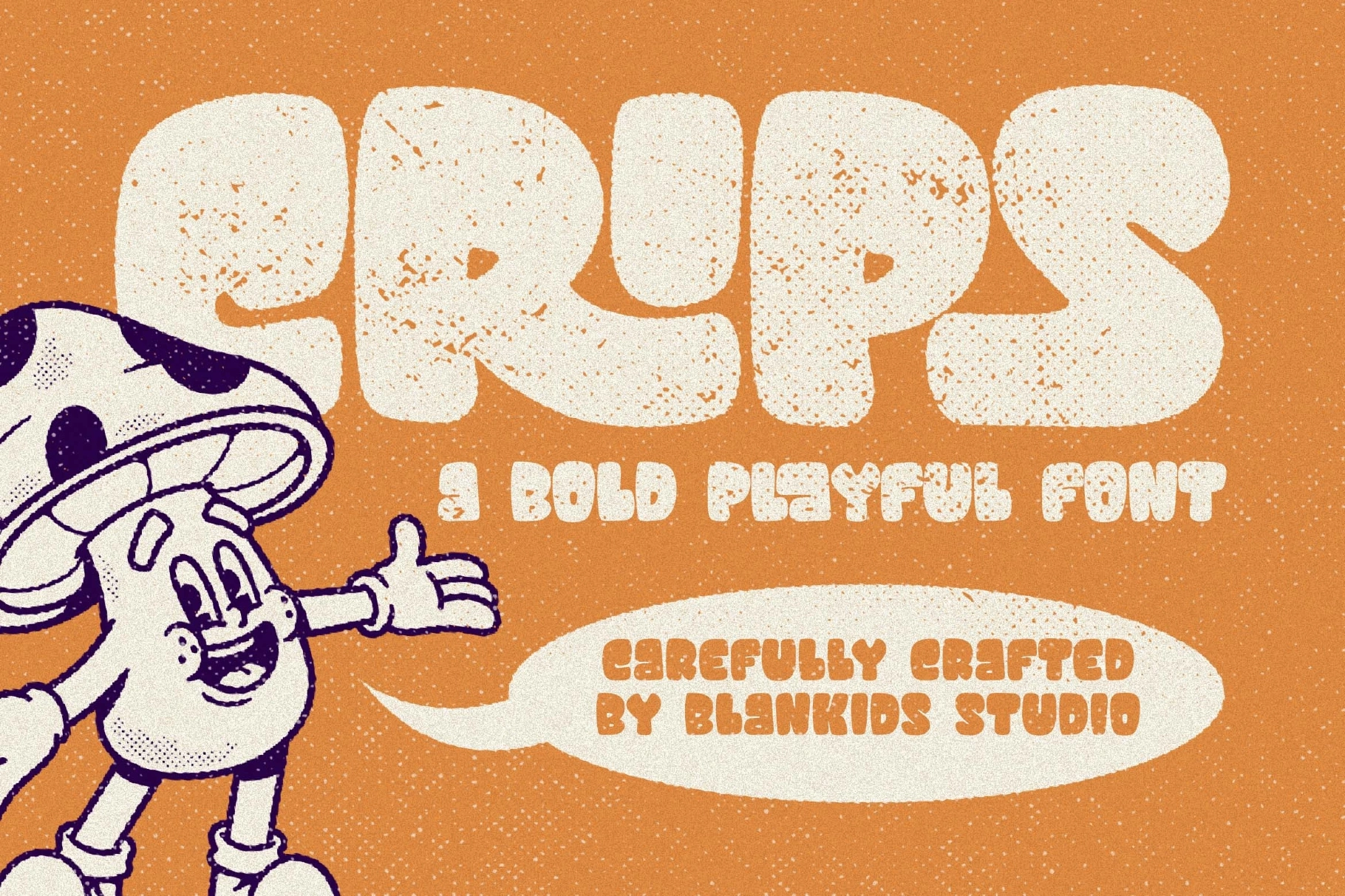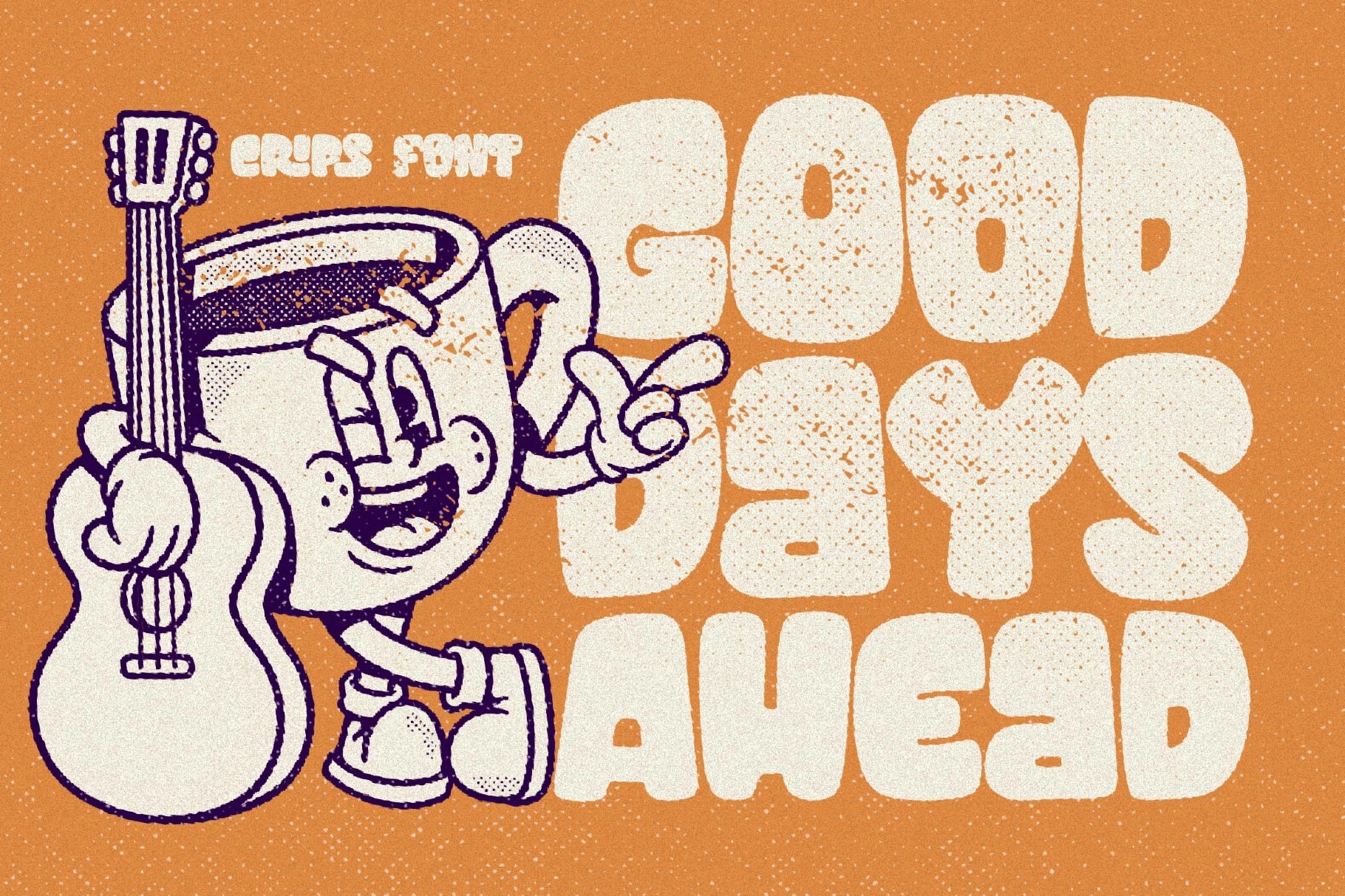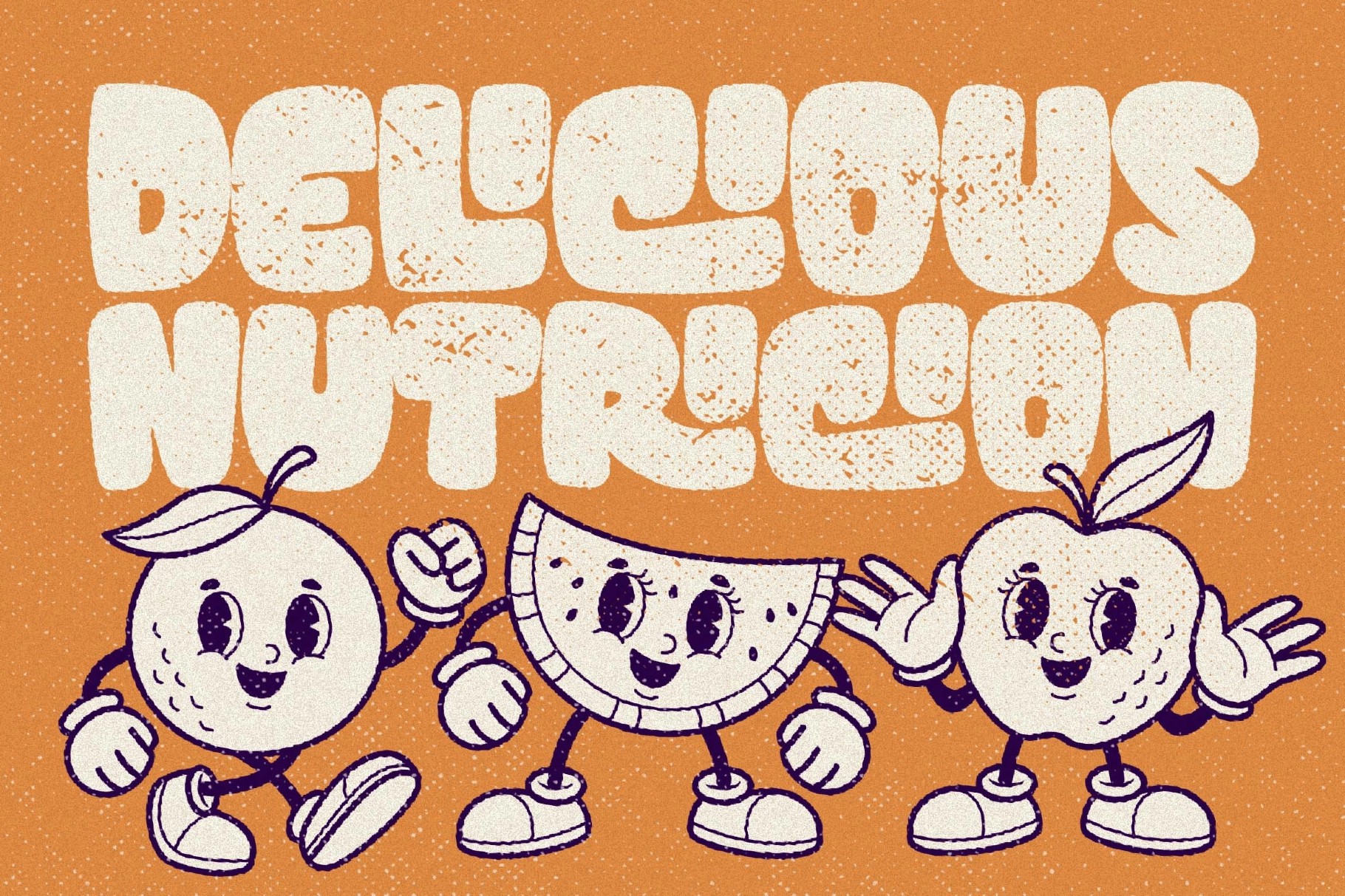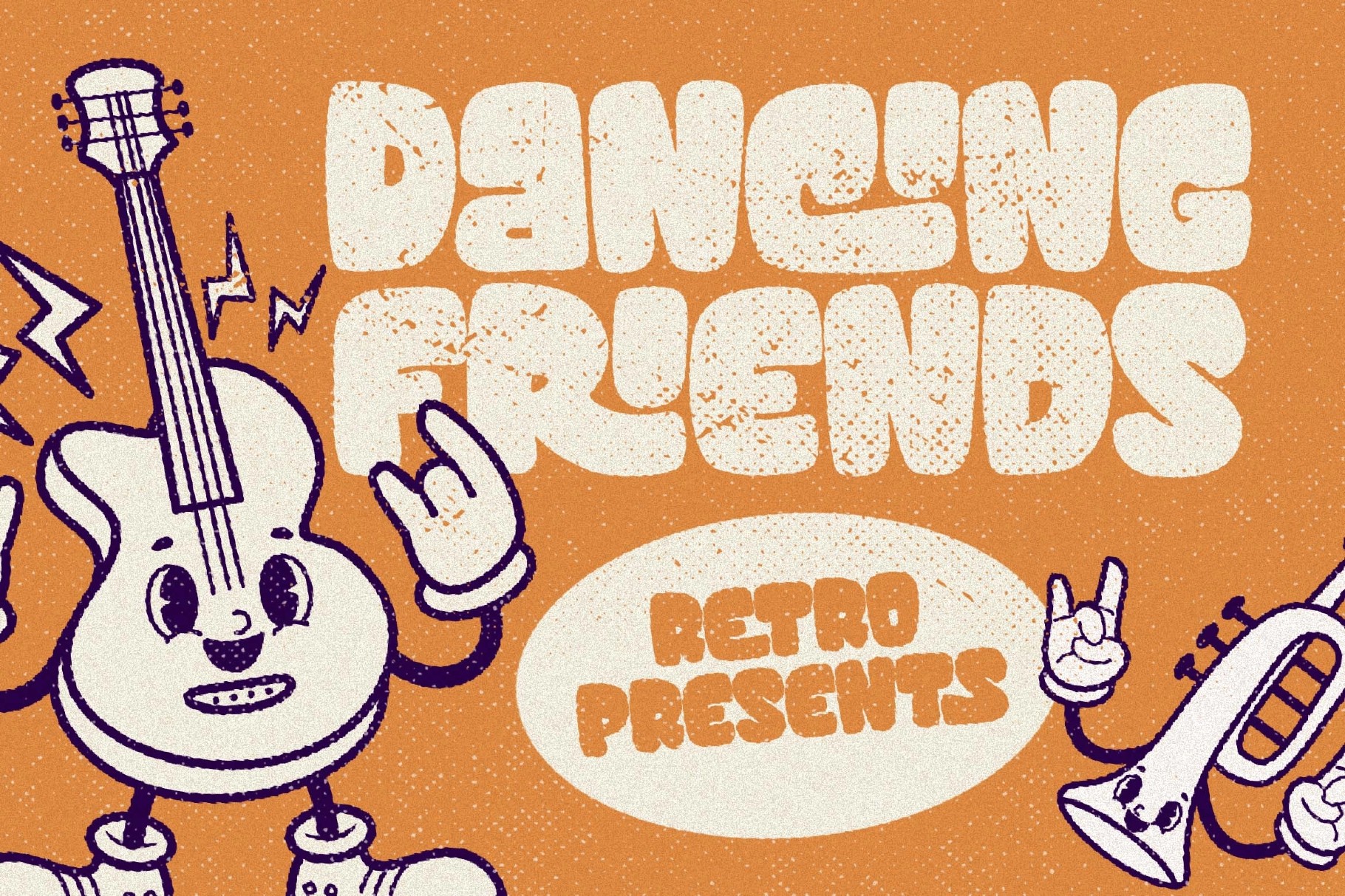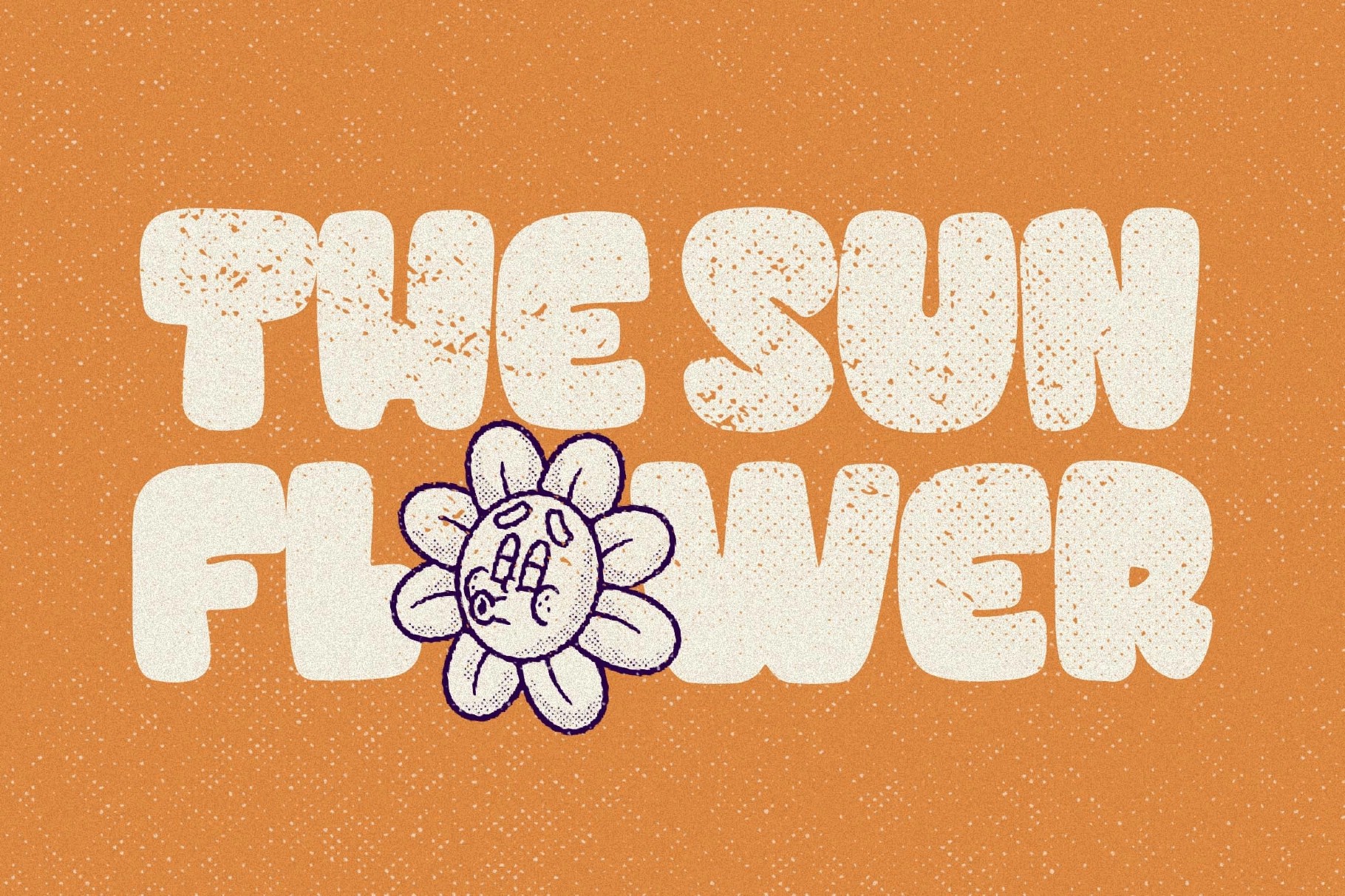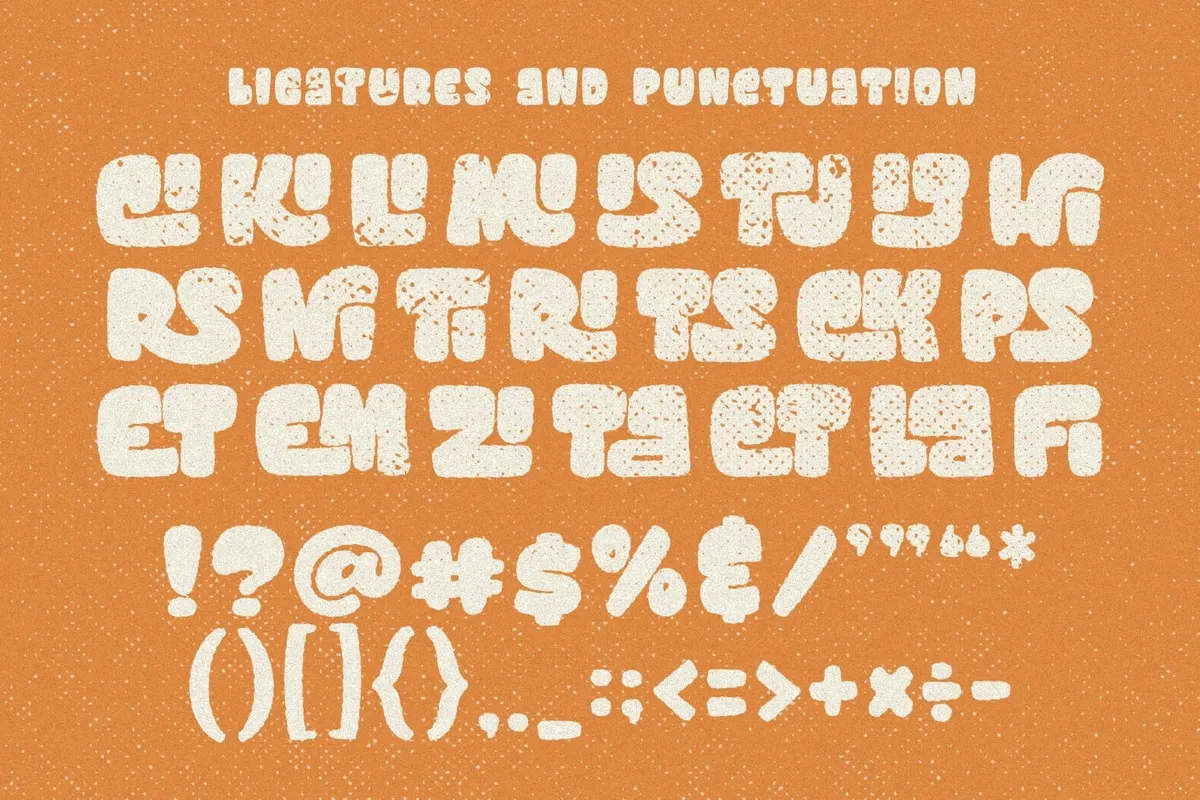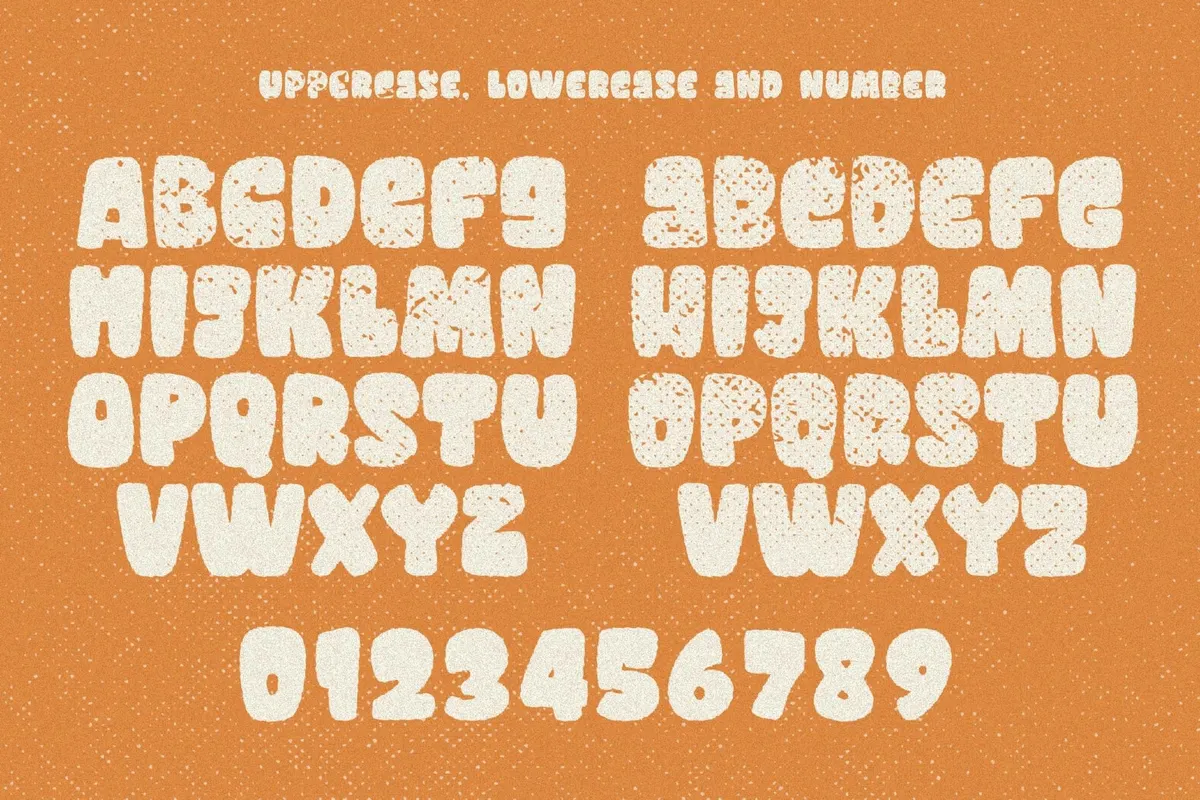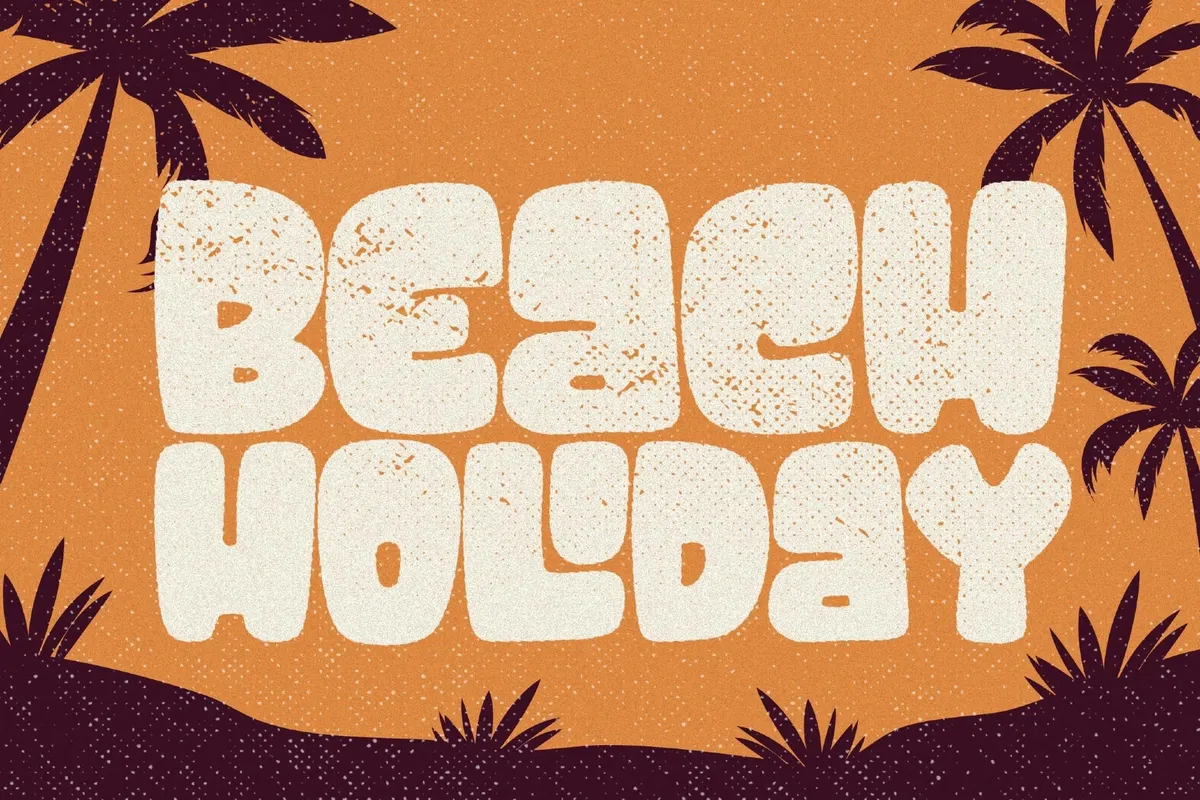
Crips - Bold Playful Font
Crips
Add energy and personality to your designs with Crips – Bold Playful Font , a lively and eye‑catching typeface perfect for projects that need a cheerful, comic‑inspired touch. Designed for bold visual statements, Crips is ideal for logotypes, posters, marketing materials, product packaging, promotions, and creative branding projects.
Every letter features a smooth cartoon look, making it easy to create dynamic titles or expressive headlines. Crips Font offers uppercase and lowercase letters, punctuation, and numerals for complete design versatility. It’s a perfect choice for designers who want to bring a sense of fun and friendliness to their work.